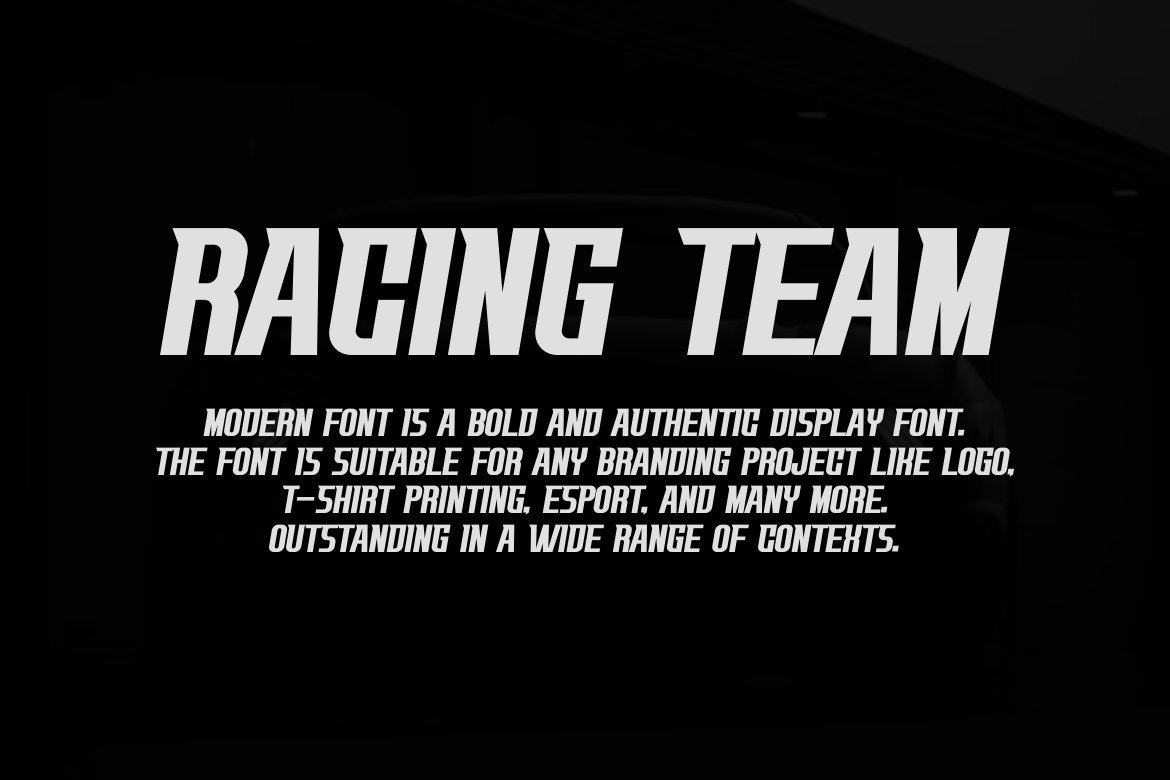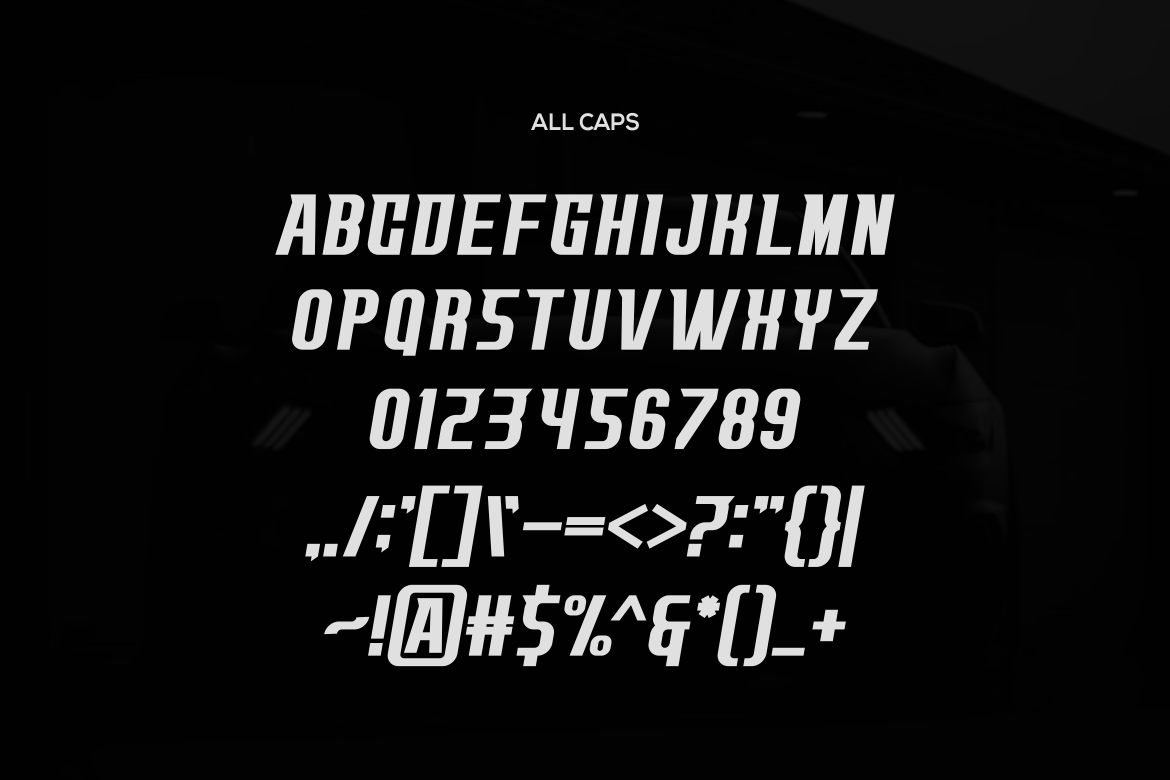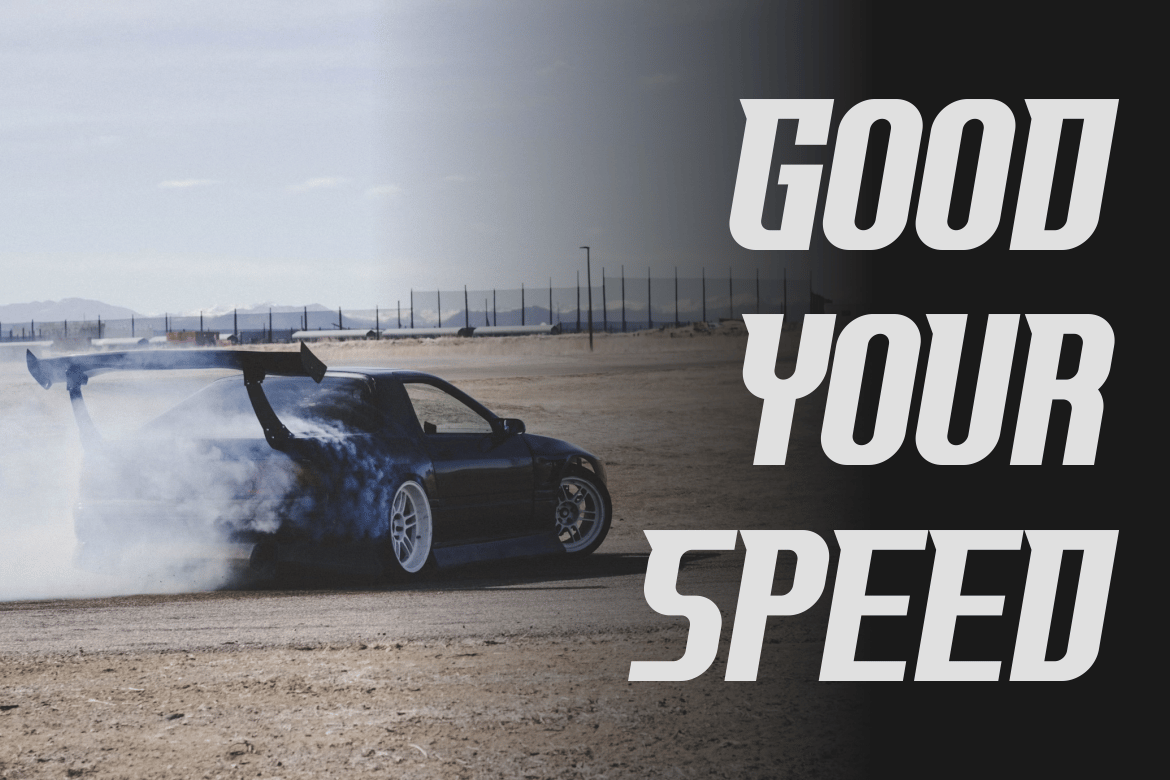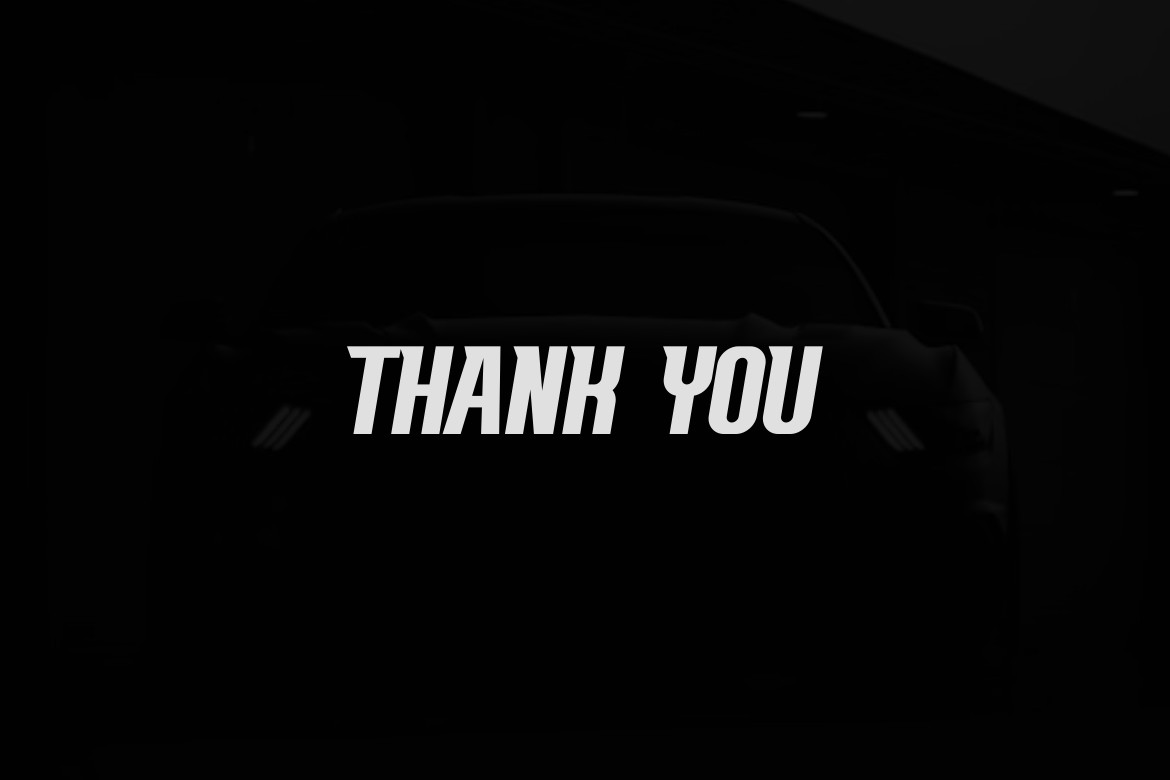
Racing Team – Modern Sport Font
Racing Team – Modern Sport Font is a unique font. Can make it easier to convey the message in your design. Use for awesome display, labeling, clothing, movie sceen, poster, movie title, gigs, album covers, logos, and much more.
- Uppercase & lowercase letters
- Numbers & punctuation